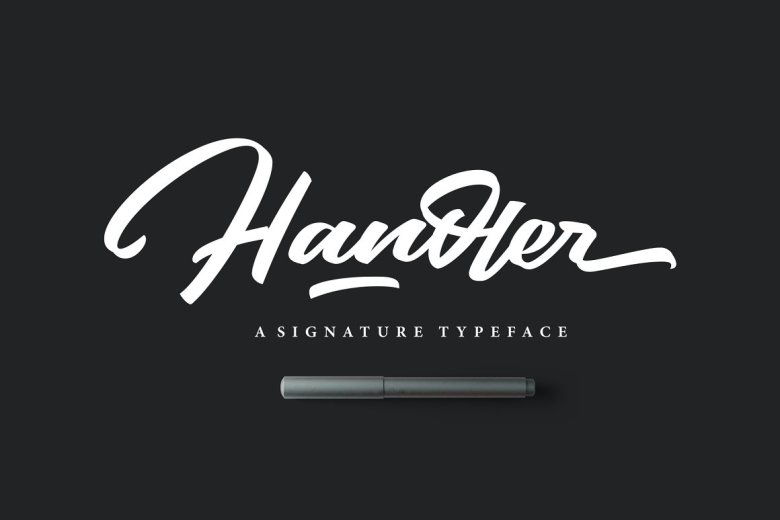
Handler Font
Handler is a modern signature script font with fun characters, bit of binder and alternatives included. Designed as a signature typeface, Handler is great for Logotype, Poster, Digital Lettering Arts, Clean Design, Branding Design, Signs and much else.
Handler Signature Script Font